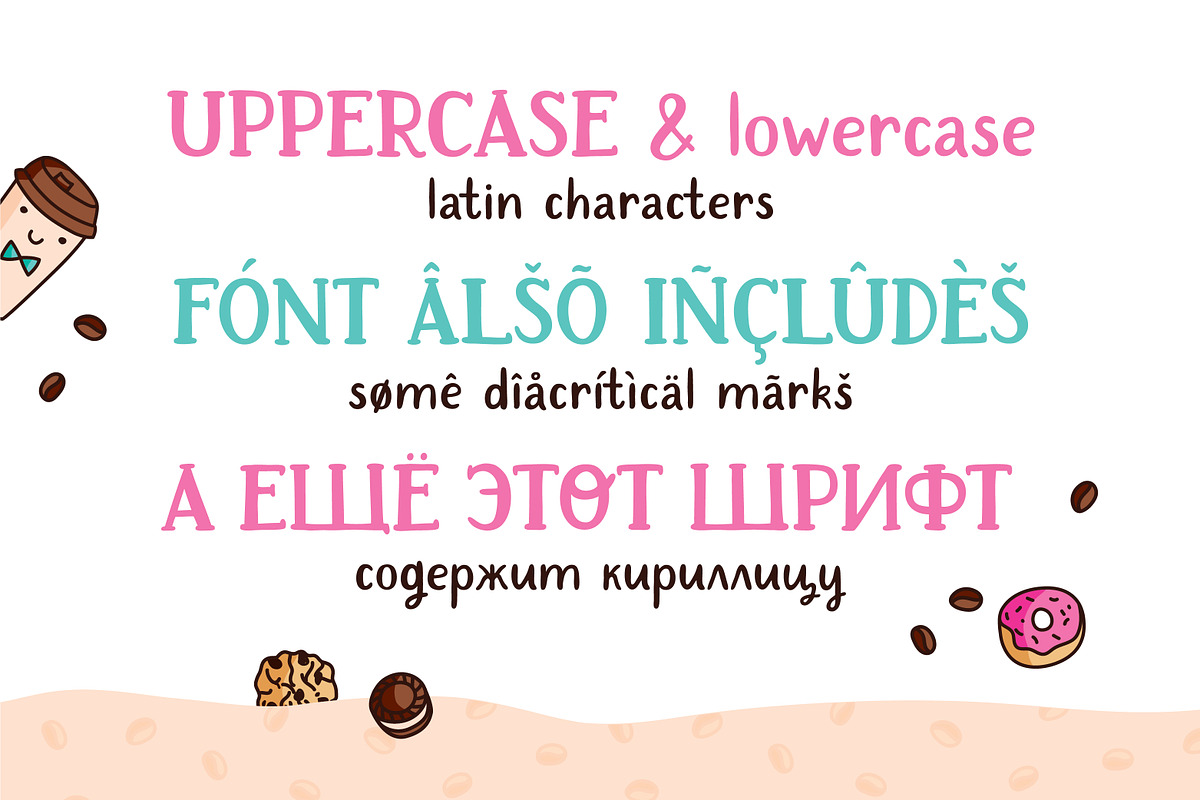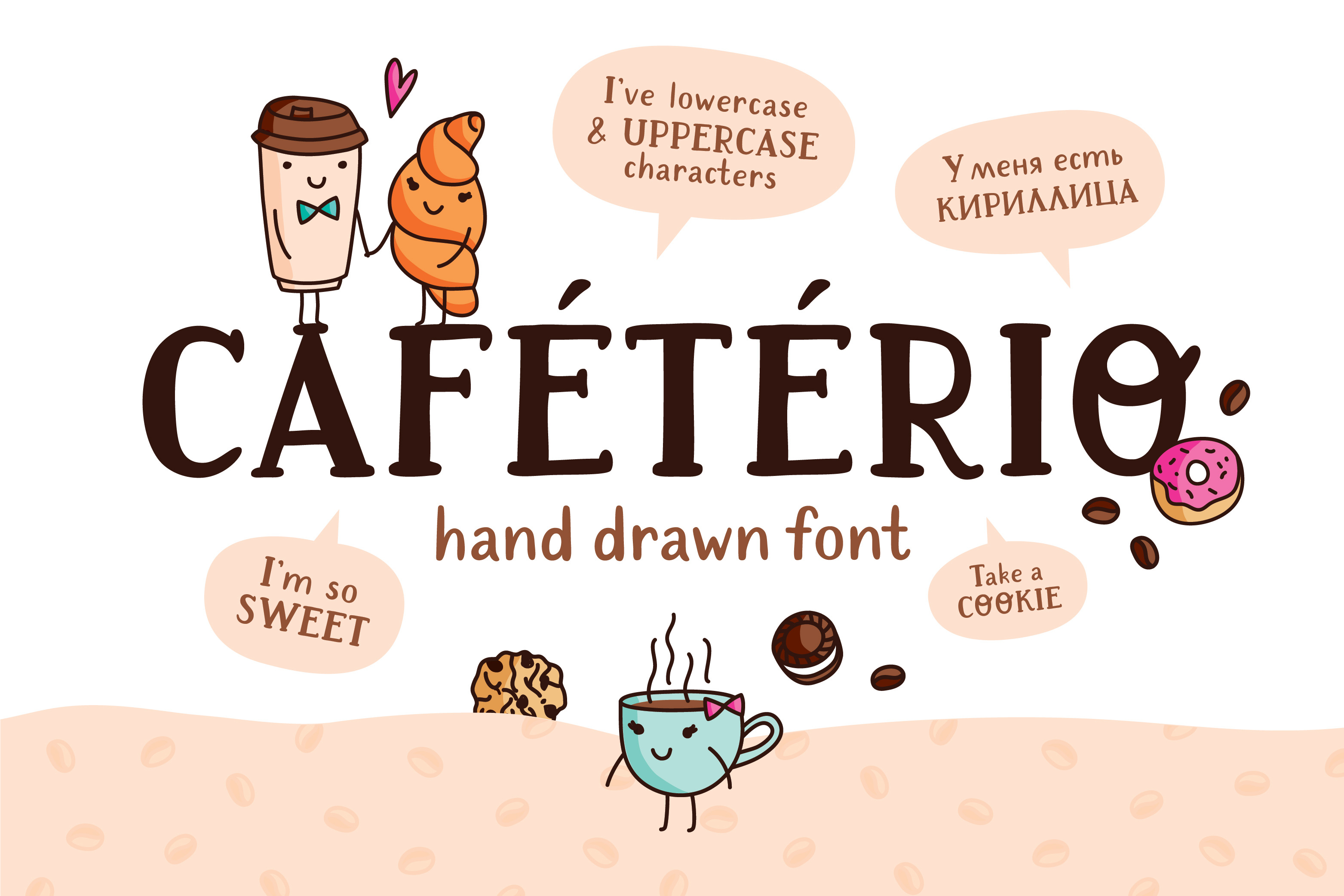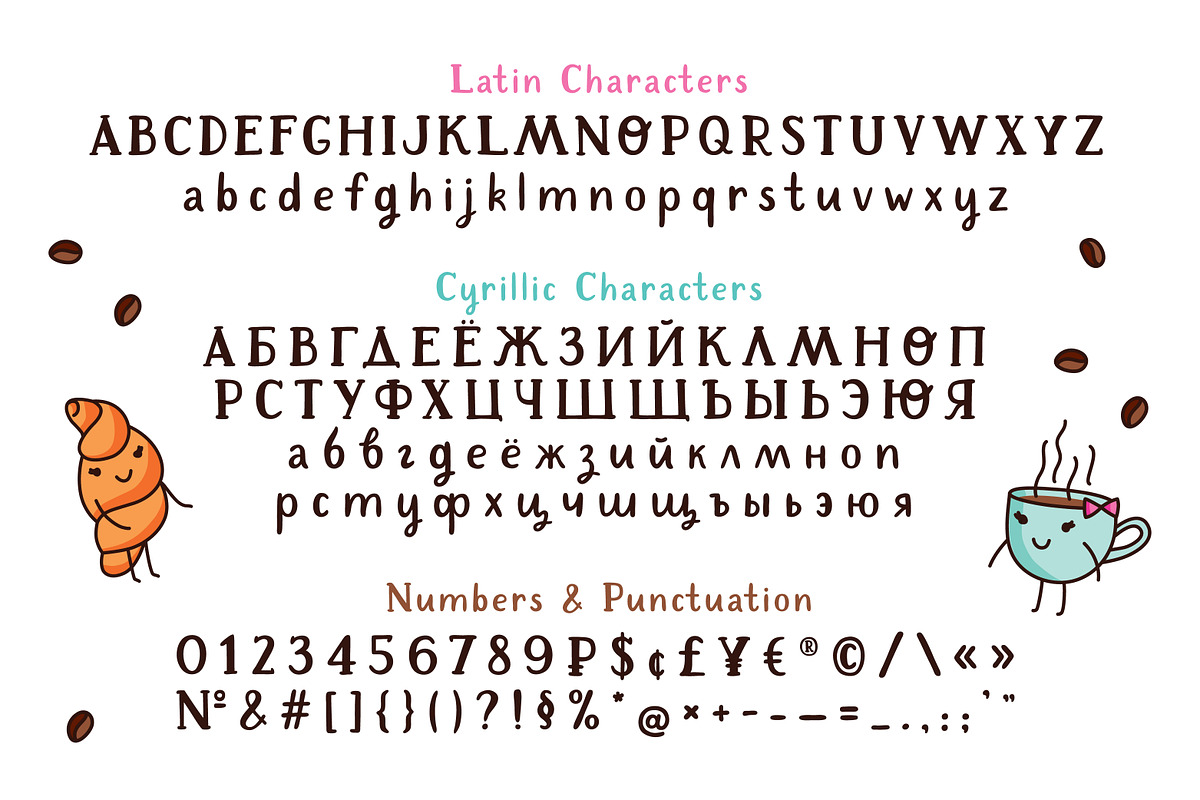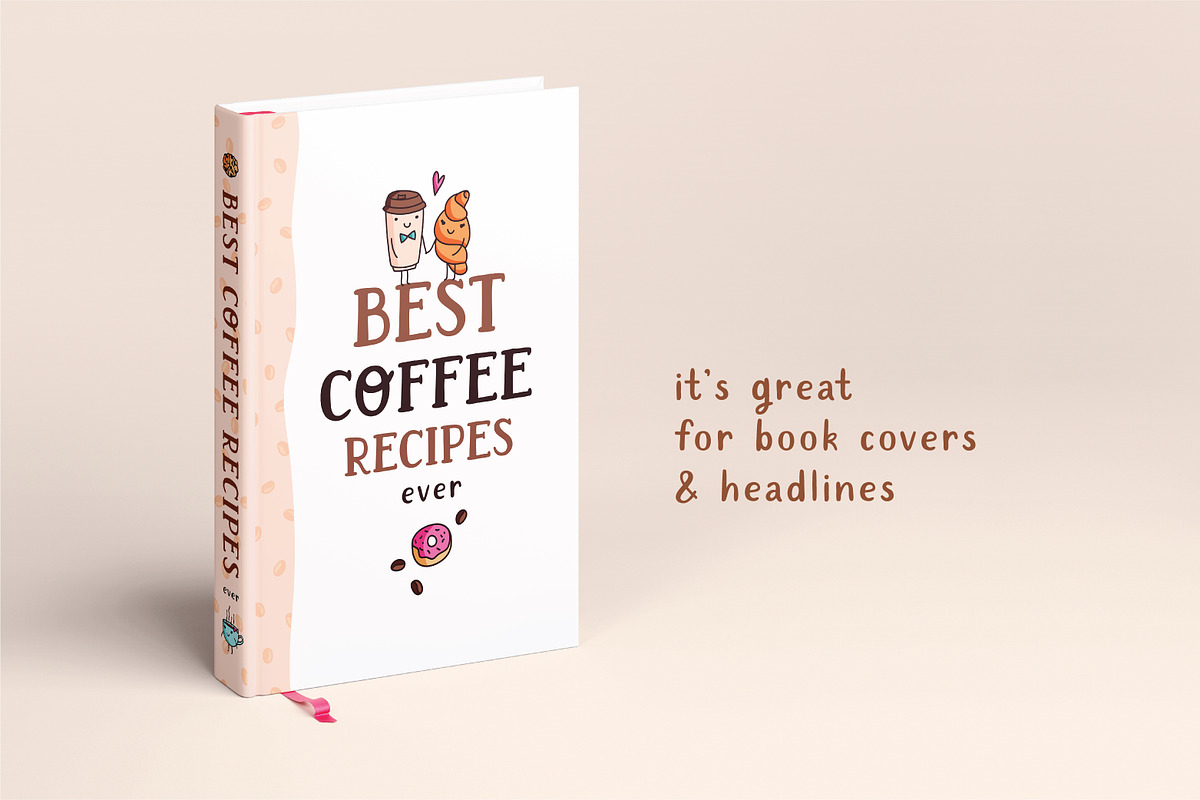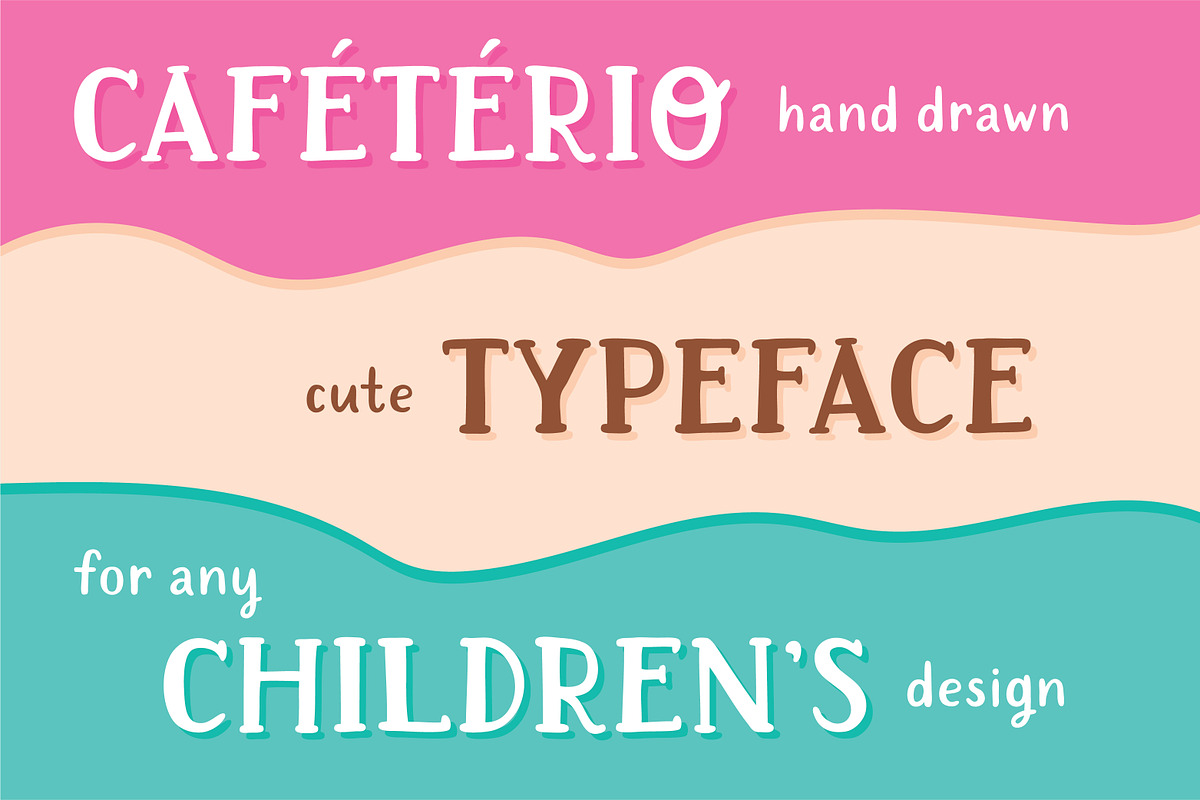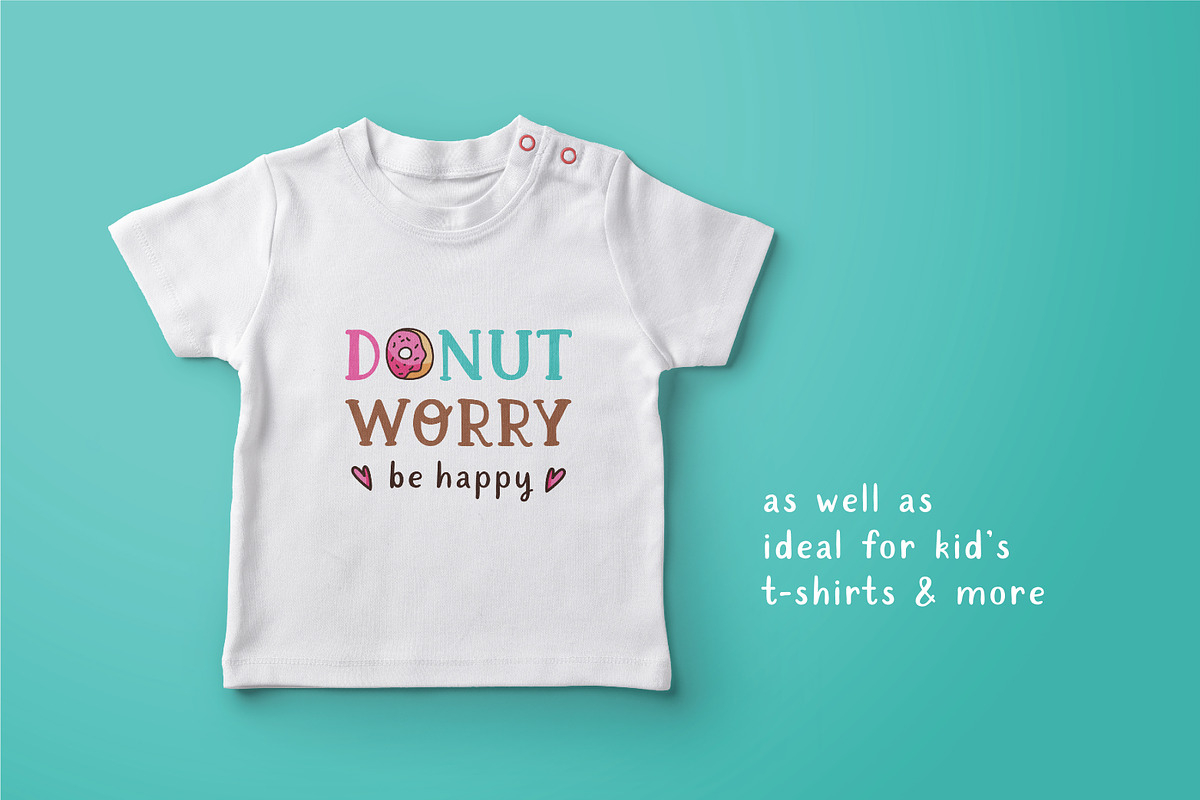
Cafeterio cute kid's font
Cafeterio is a hand drawn cute font which makes it great for any children's design, be it a book cover, a t-shirt or a poster. Font includes latin and cyrillic characters, diacritics, numbers and punctuation.